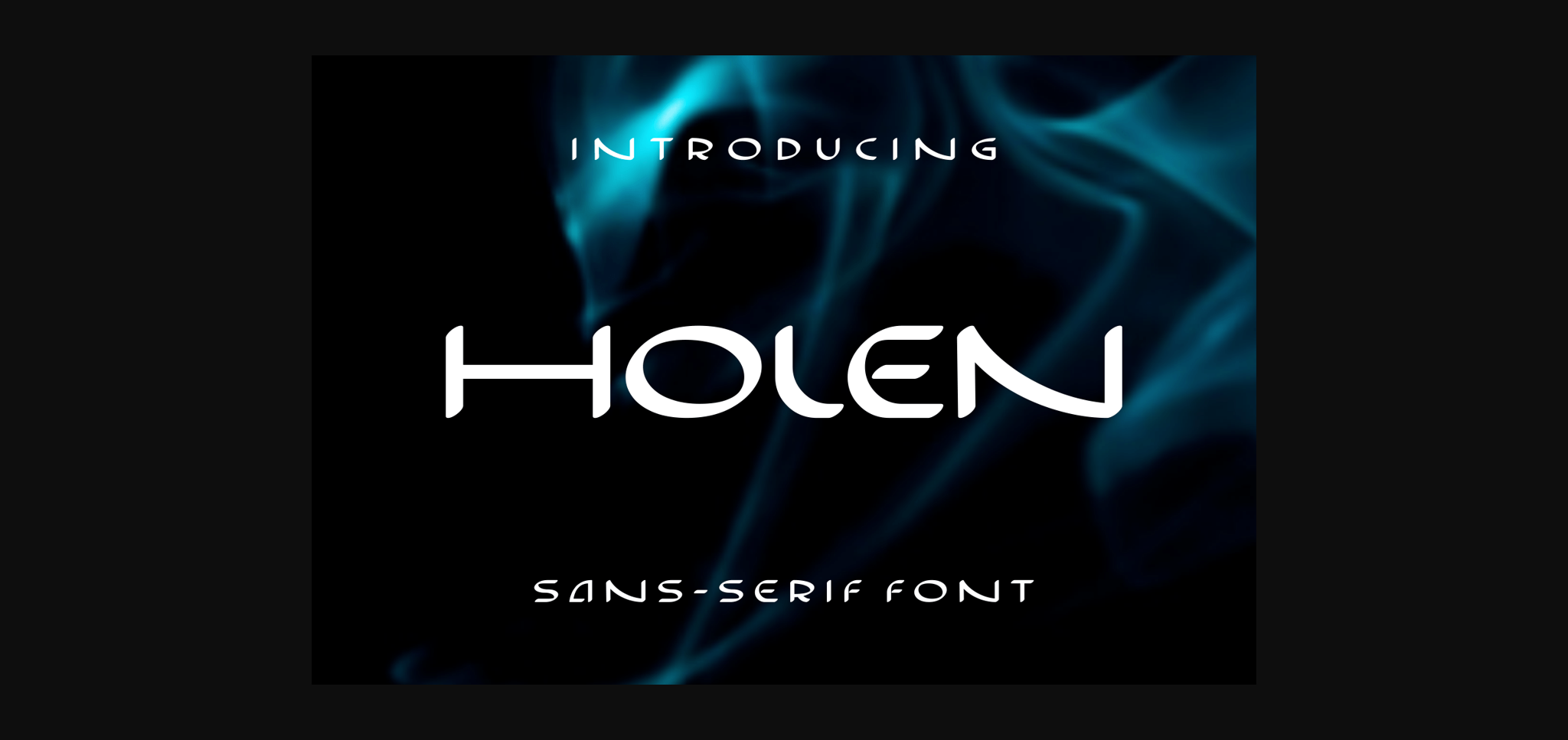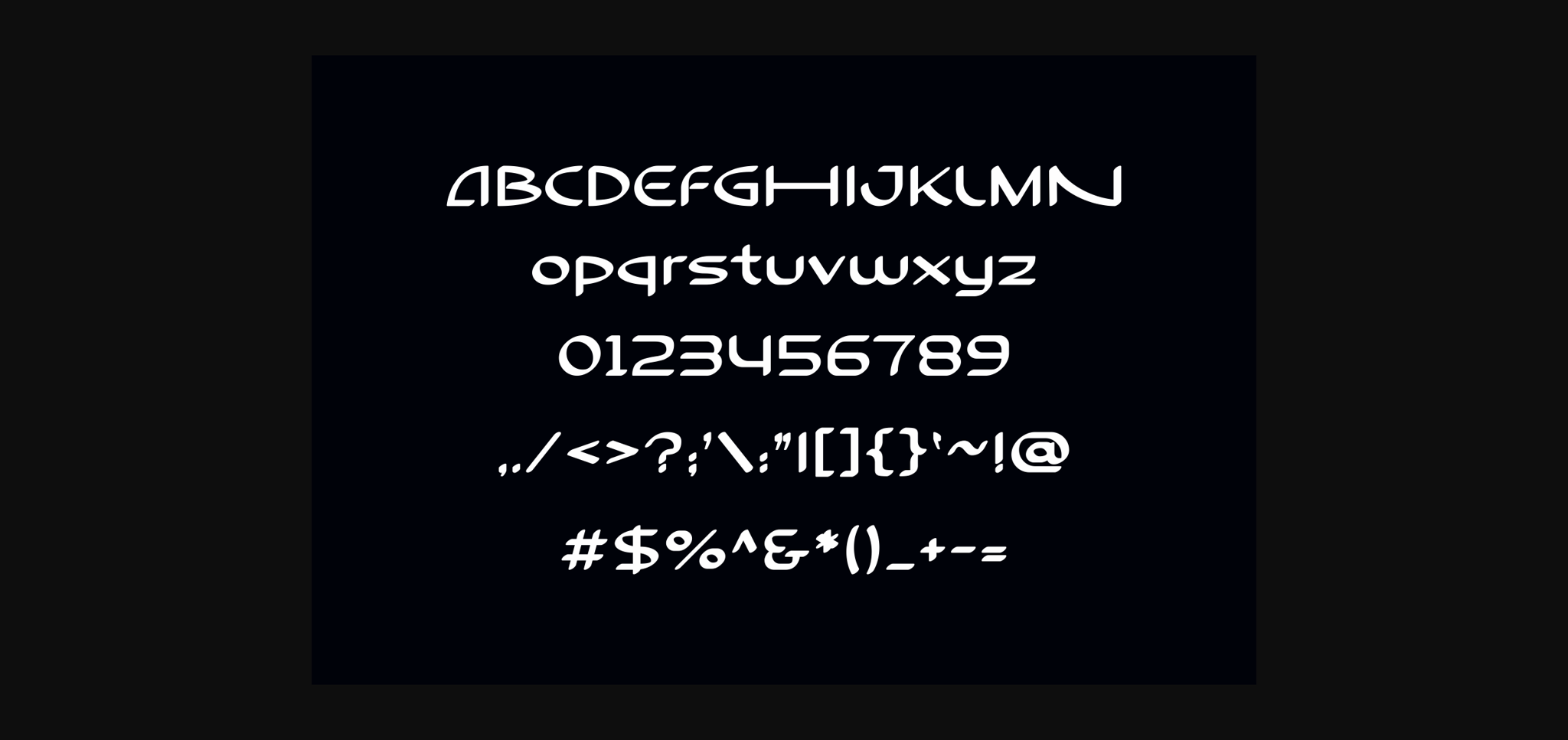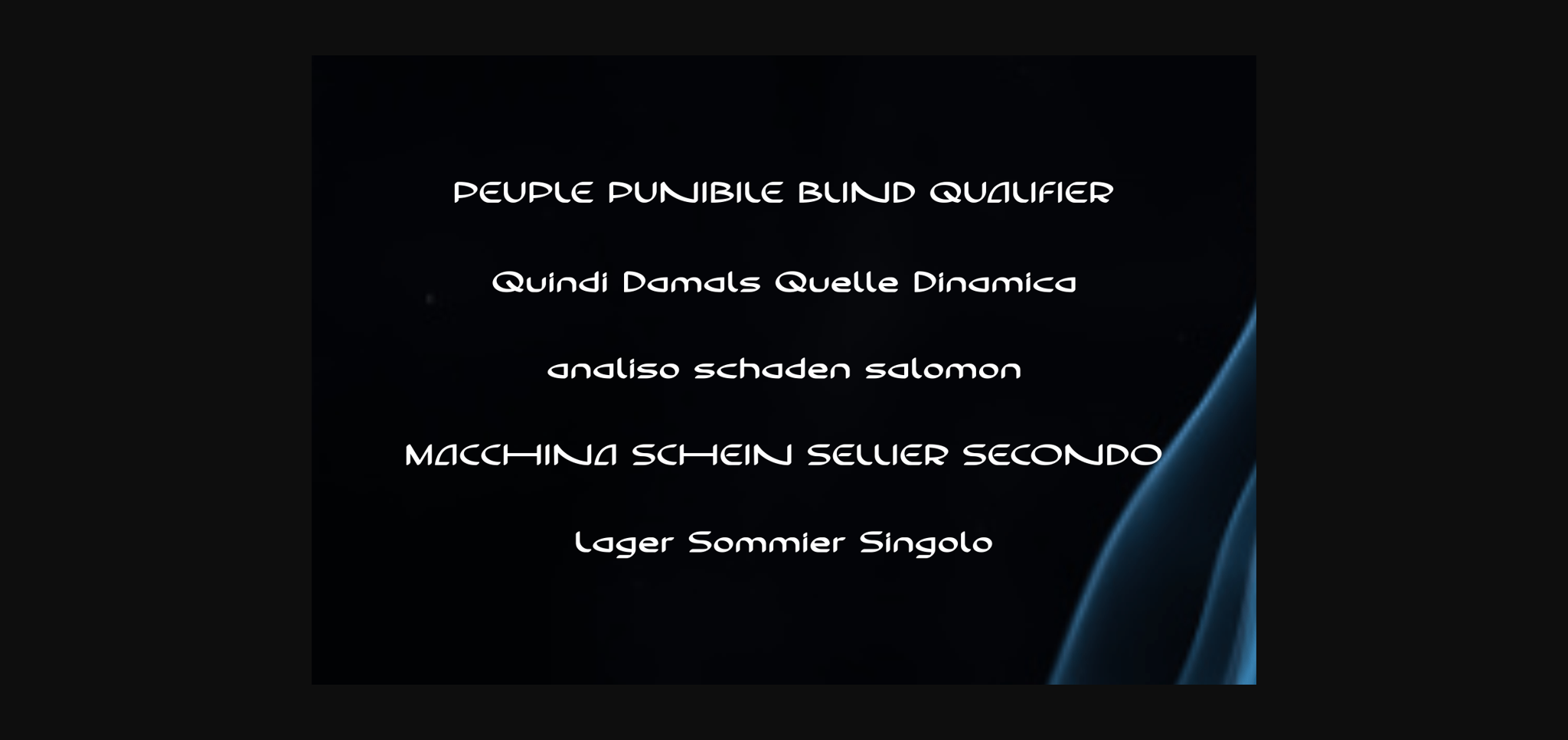
About Holen Font
Holen is a stylish, uniquely shaped sans serif font. Use this sans serif font to add that special touch to any design idea you can think of!